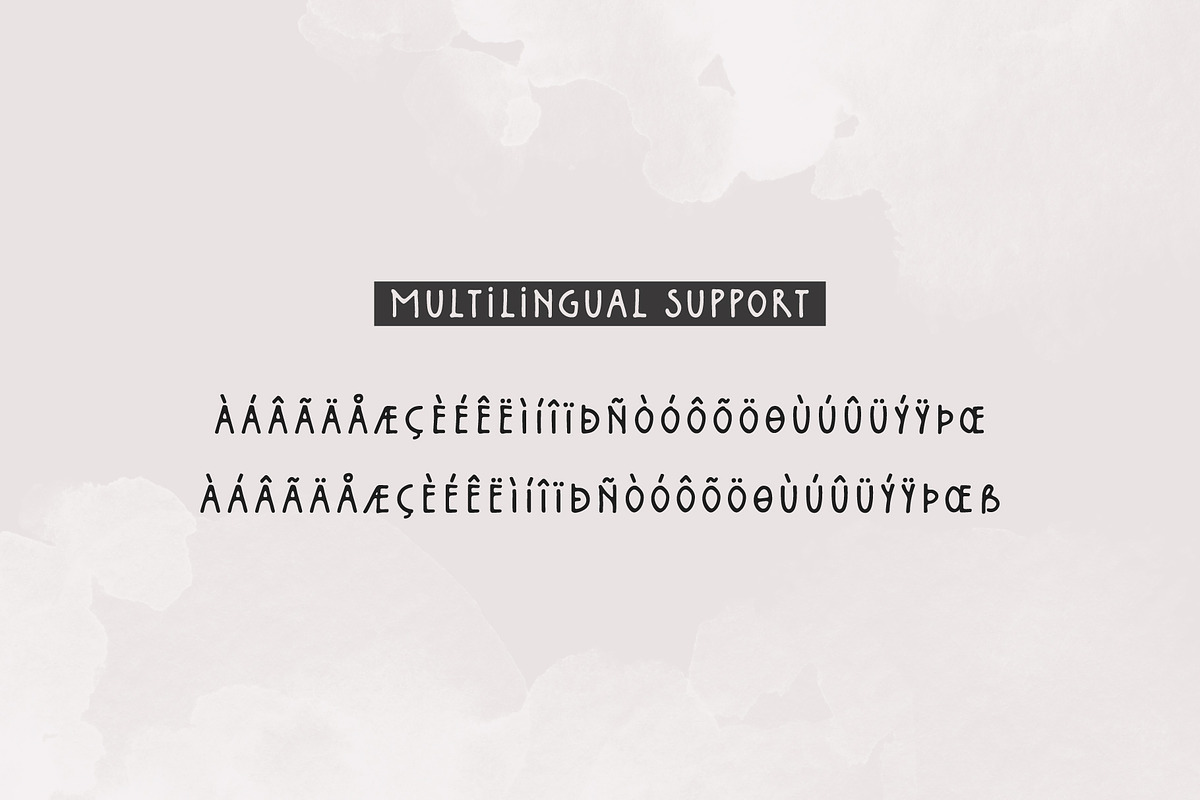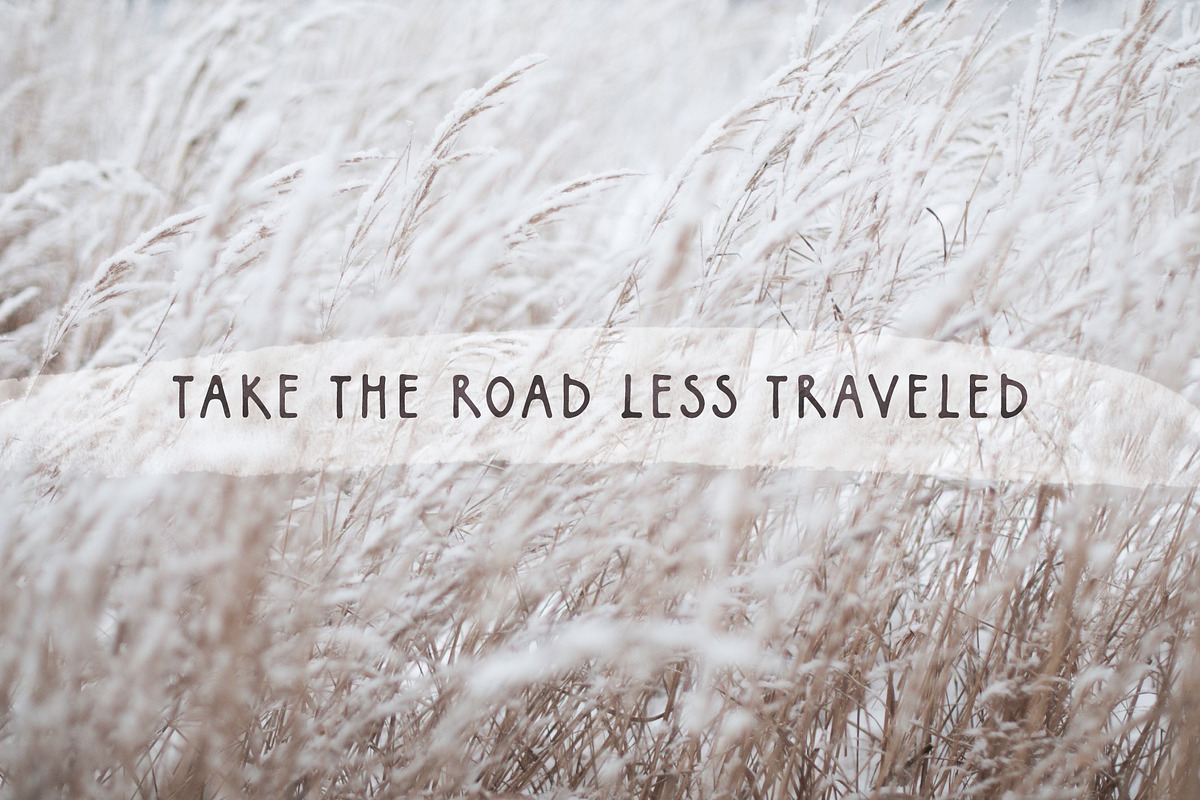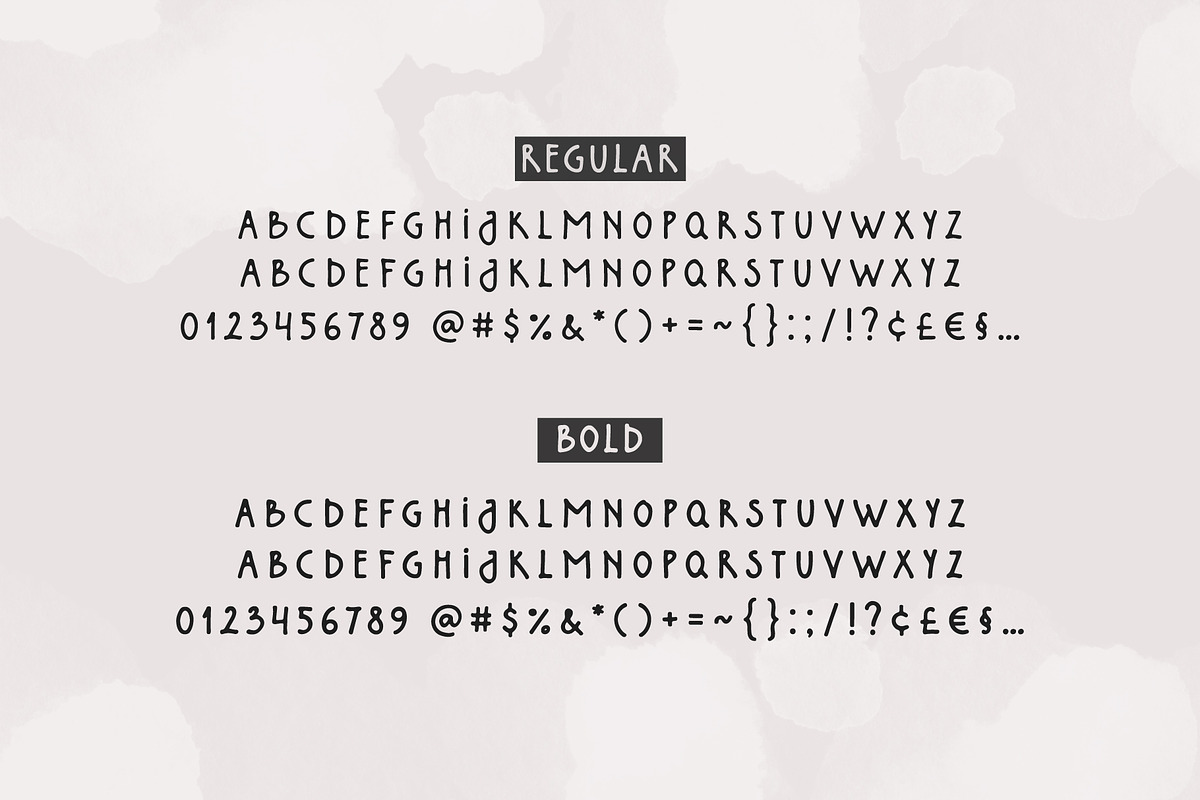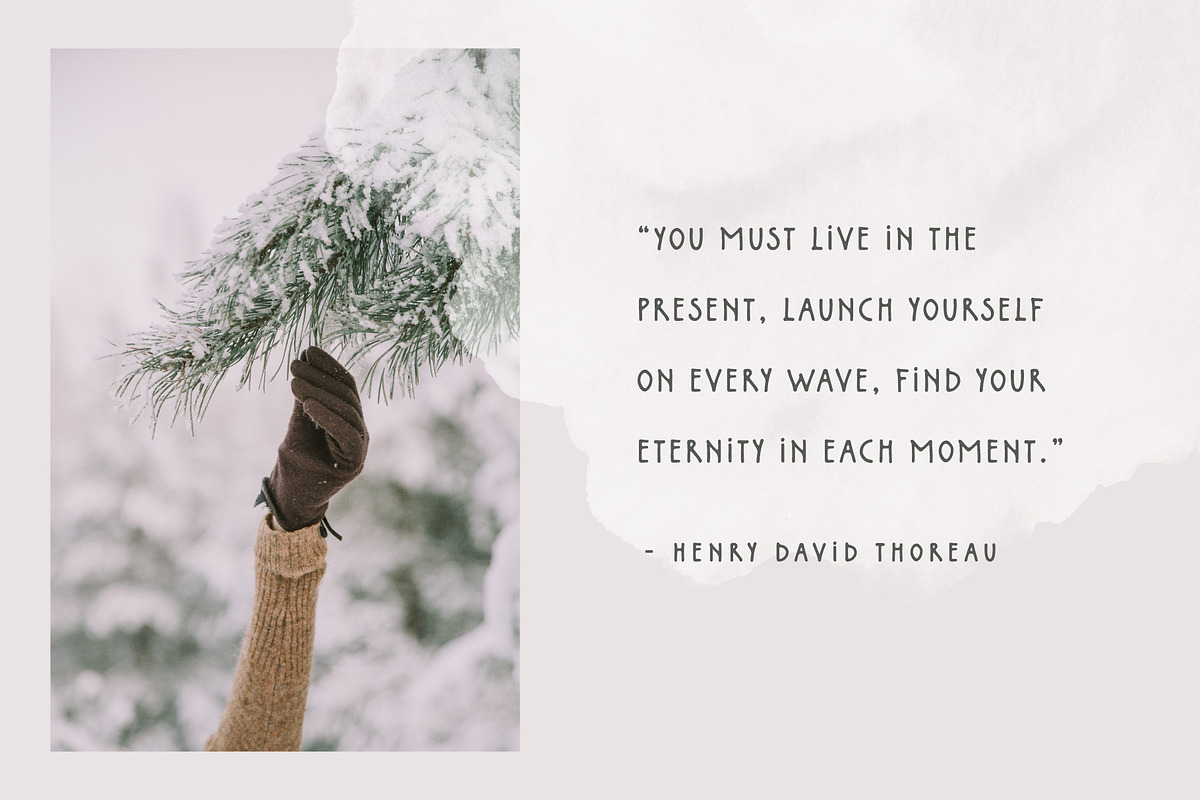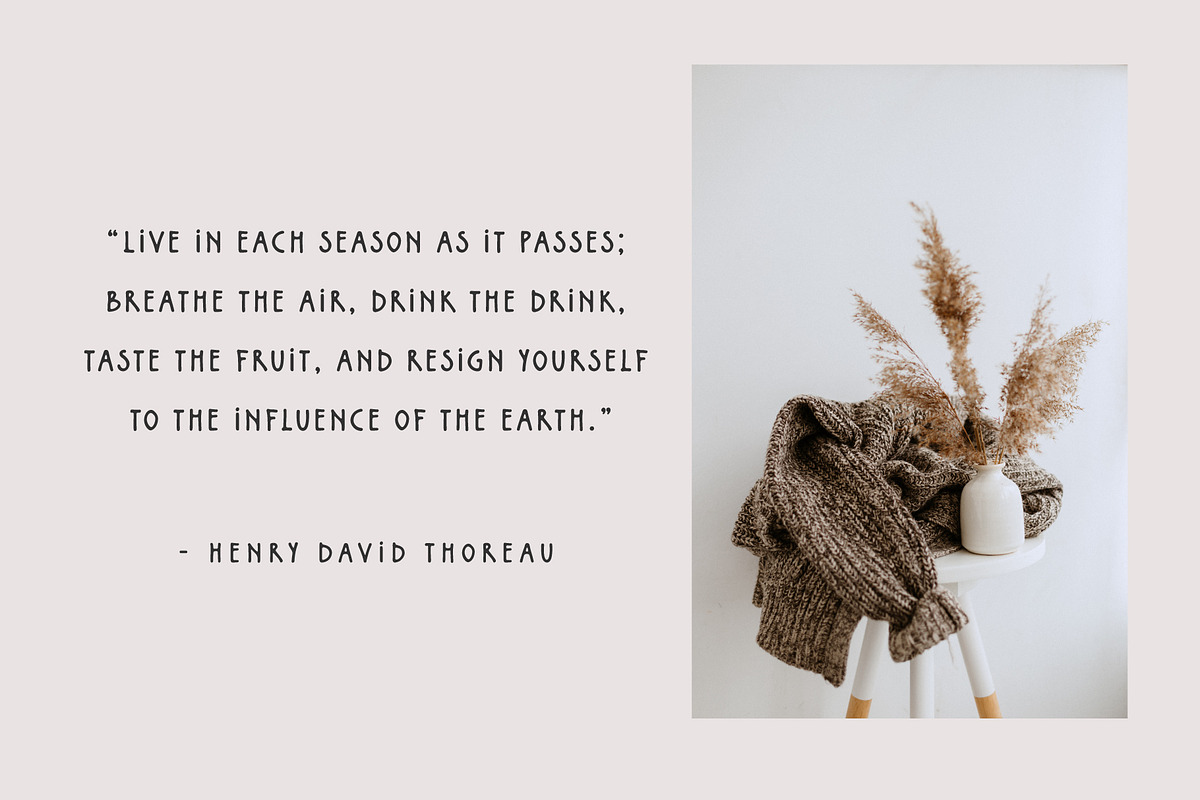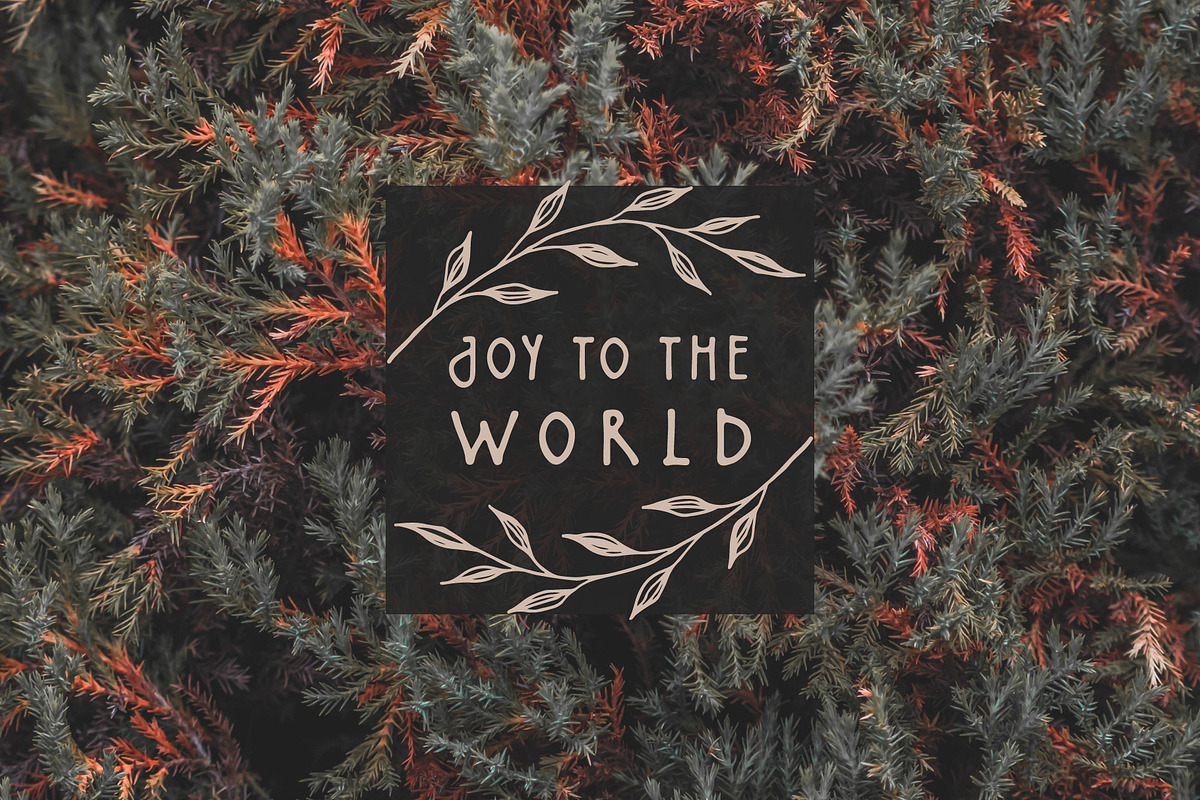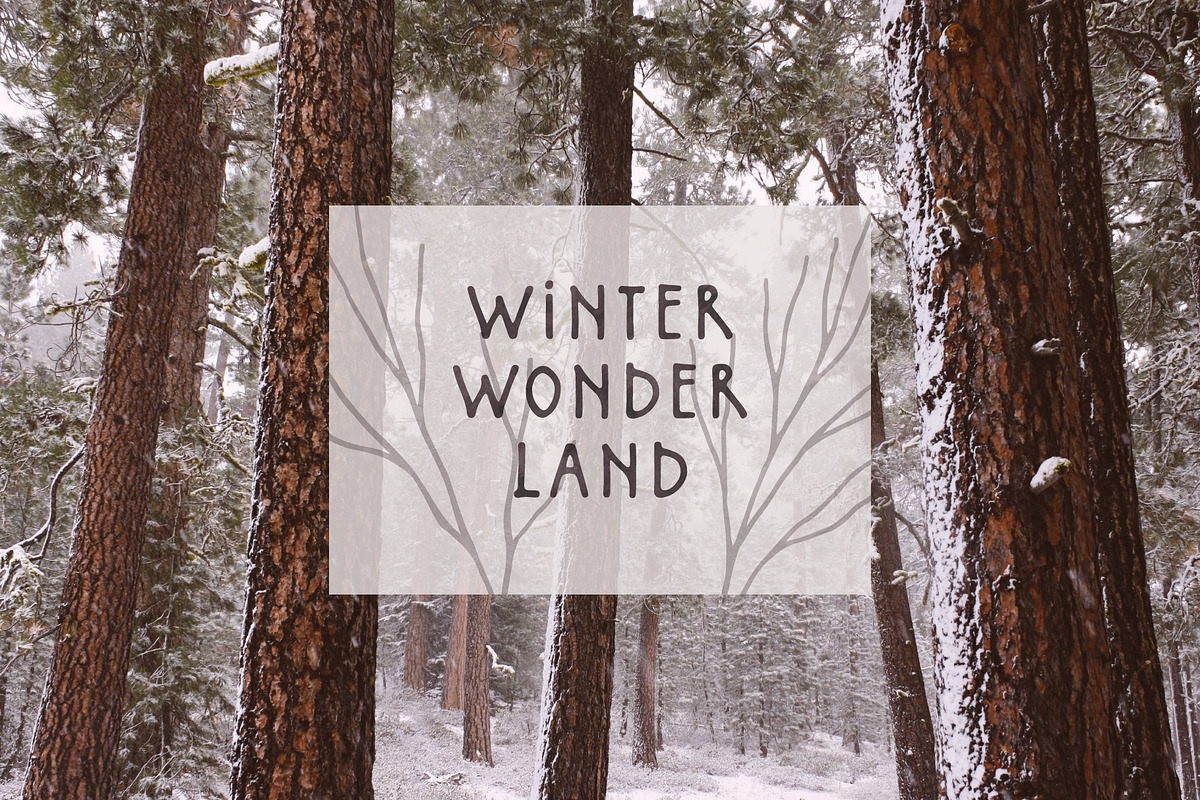
Northlands | Hand Drawn Font
Northlands is a handlettered display font with minimalist, clean and natural look. It comes in two weights and is perfect for minimal modern designs, especially for logos, titles, quotes, postcards, etc.
two sets of uppercase letters
numbers, symbols and punctuation
multilingual support: English, French, German, Spanish, Dutch, Finnish, Irish, Italian, Norwegian, Portuguese, etc.